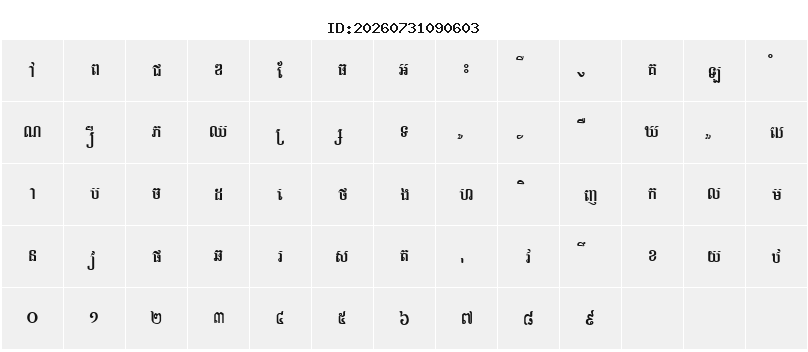
Limon S4 Preview
• Font Name: Limon S4
About Limon S4.ttf
Limon S4.ttf is a modern, elegant sans-serif font designed for ultimate readability and visual harmony. Perfect for branding, headlines, web design, and print materials.